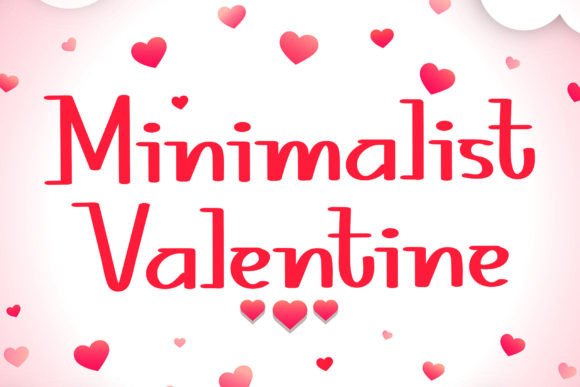
Adorn your designs with the enchanting allure of Minimalist Valentine, a display font born from the fusion of classic elegance and modern simplicity. Its smooth, graceful curves dance across the page like a love letter penned with utmost care, evoking a sense of timeless romance and sophistication.
With Minimalist Valentine, your creations will transcend the ordinary, captivating hearts and leaving an enduring impression. Its delicate strokes, reminiscent of a whispered sonnet, lend an air of intimacy and charm to every word, making it the perfect choice for wedding invitations, save-the-dates, and other cherished keepsakes.
Whether you're a seasoned designer or just starting your creative journey, Minimalist Valentine is the key to unlocking a world of elegance and beauty in your designs. Its versatility extends beyond wedding-related projects, making it a stunning choice for logos, branding, social media graphics, and more. Its clean lines and timeless appeal ensure that your message will always shine through with clarity and grace.
Step into a realm of refined aesthetics and heartfelt expression with Minimalist Valentine. Let its elegant curves and delicate flourishes elevate your designs to new heights, leaving a trail of enchantment wherever they go. Embrace the allure of this captivating font and watch as your creations blossom into masterpieces of love and beauty.
The Minimalist Valentine font isn't just a font; it's an experience. It's the feeling of joy and excitement as you plan your wedding, the anticipation of the big day, and the memories that will last a lifetime. It's the perfect font to capture the magic of your special day.
So why wait? Embark on a journey of design excellence with Minimalist Valentine today. Let its timeless beauty elevate your projects and create a lasting impression that speaks volumes. Discover the enchanting world of typography with Minimalist Valentine, where love and elegance dance together in perfect harmony.